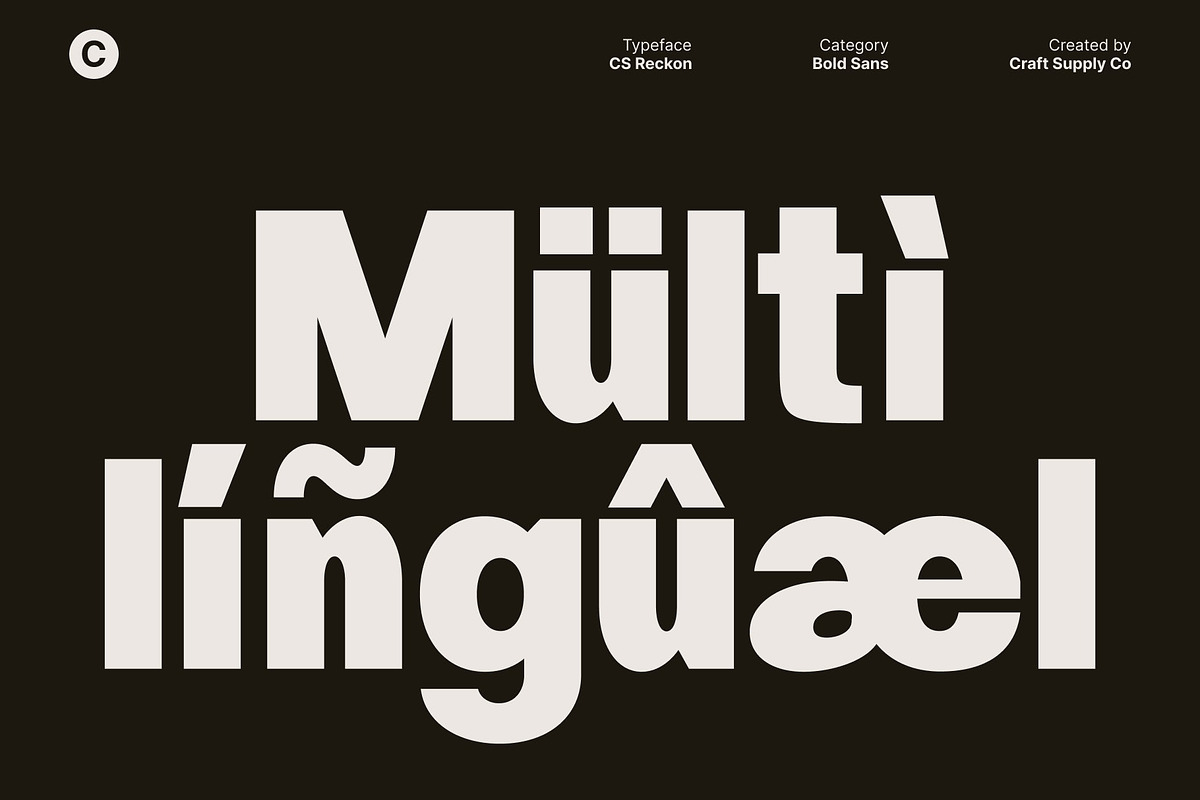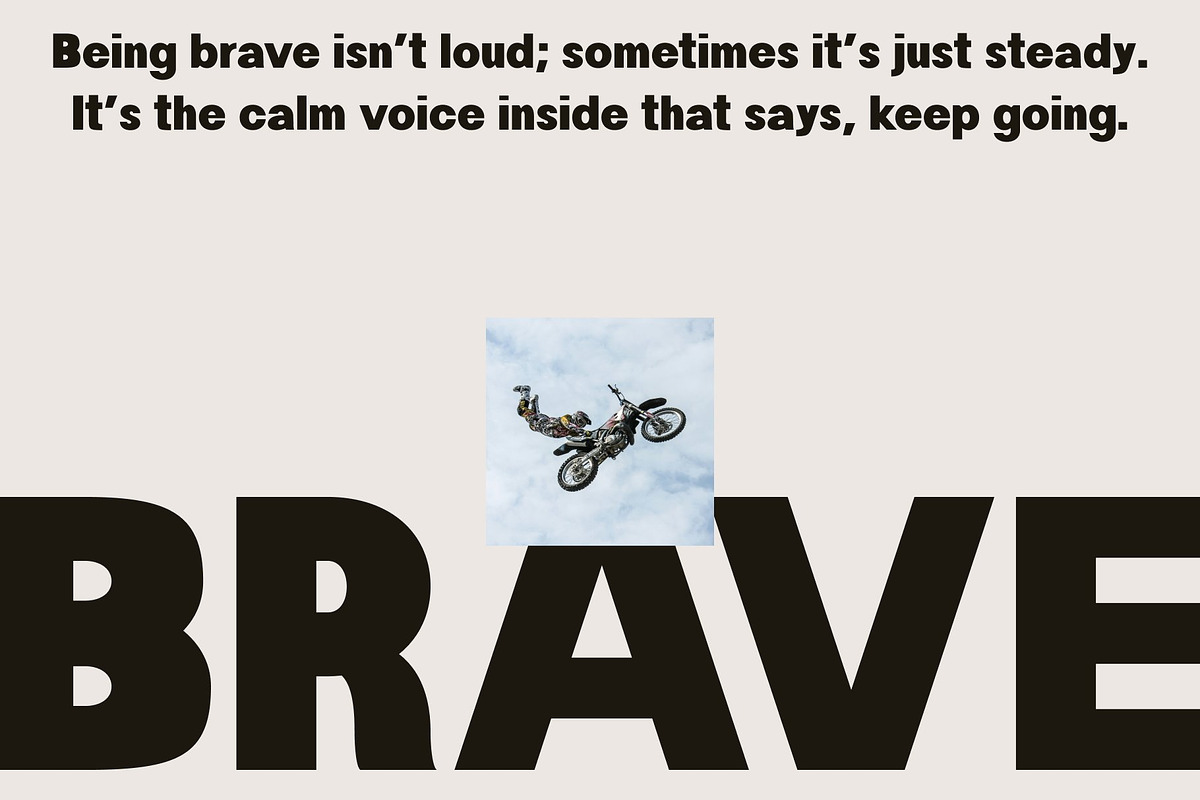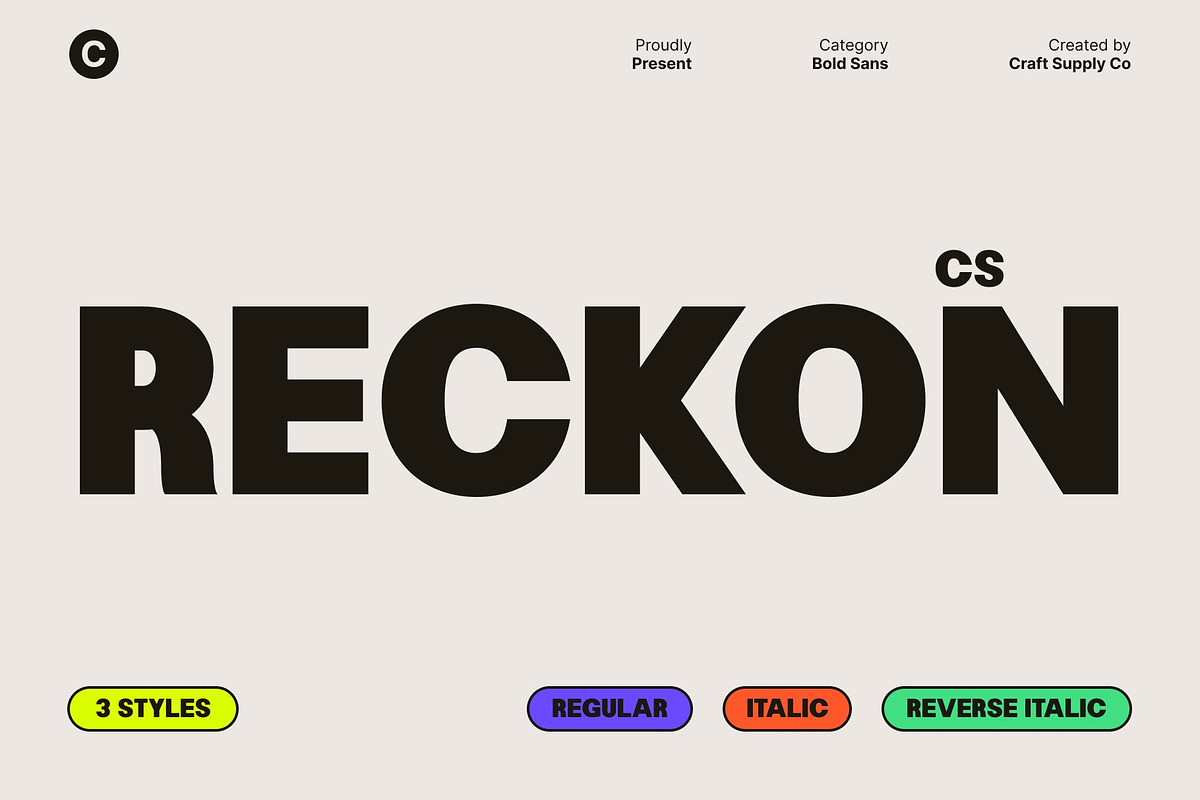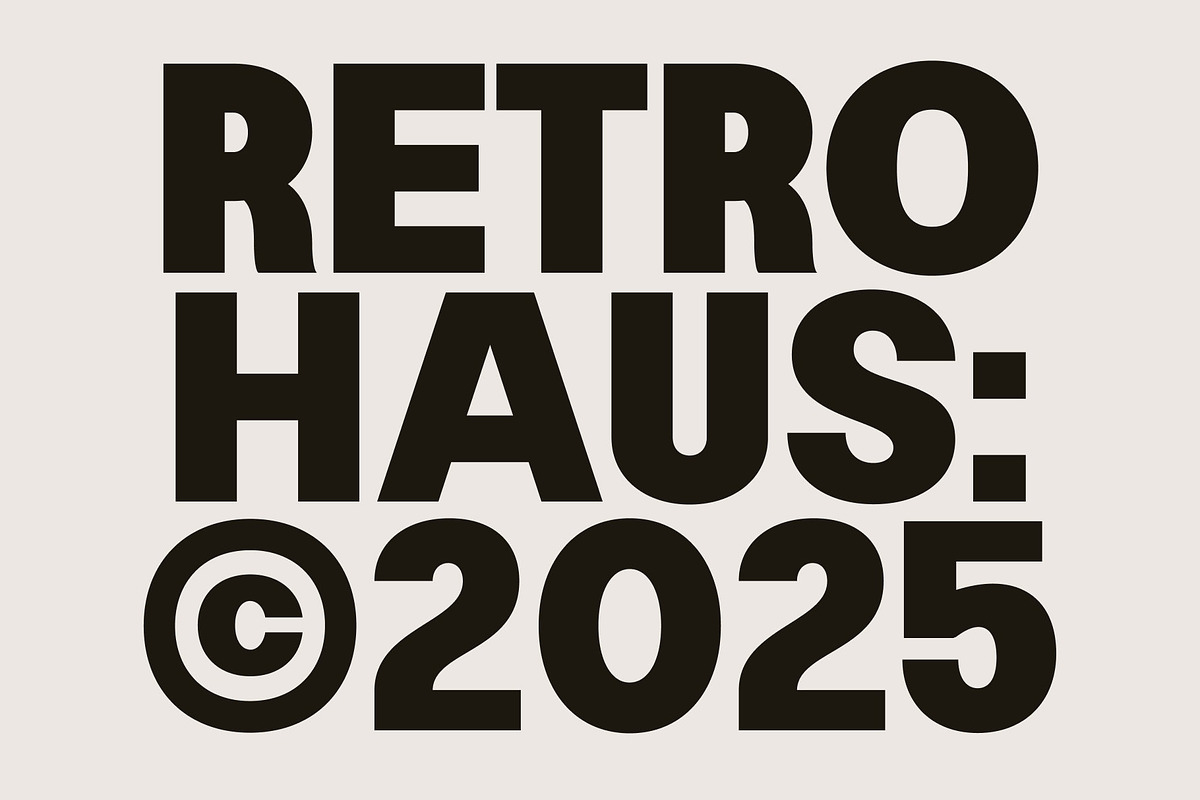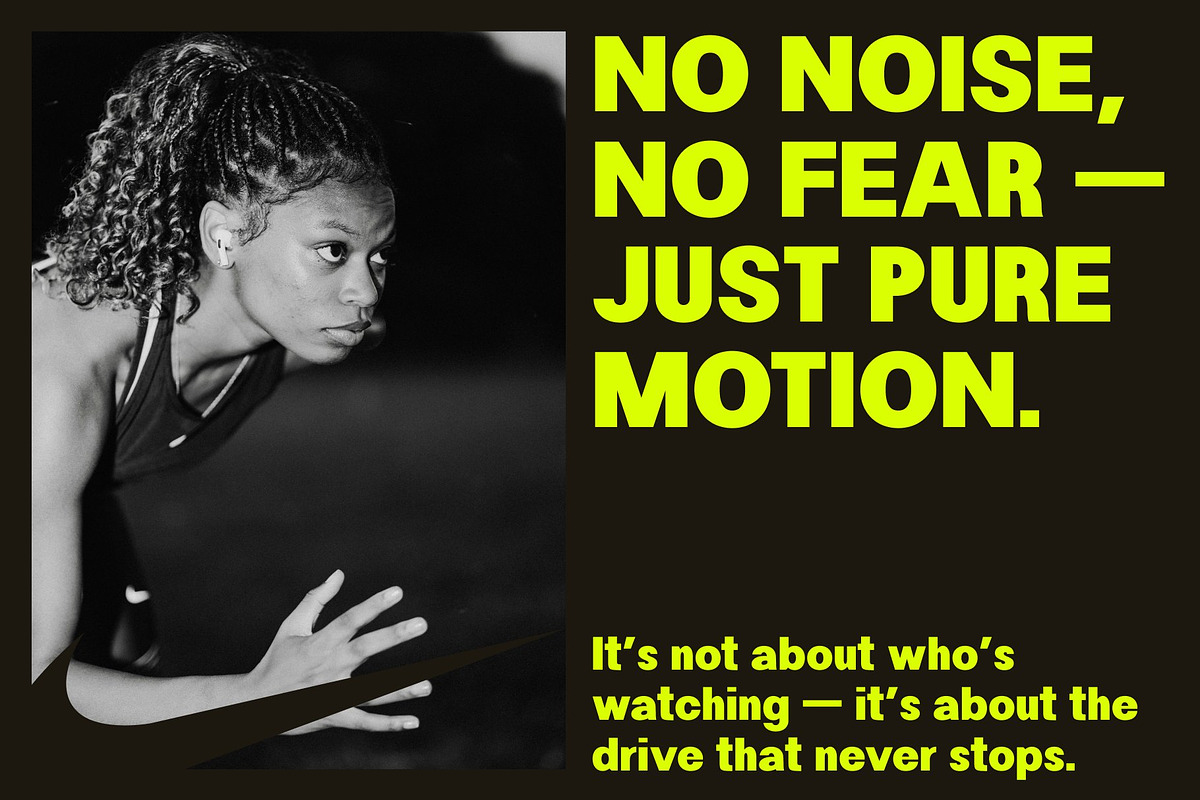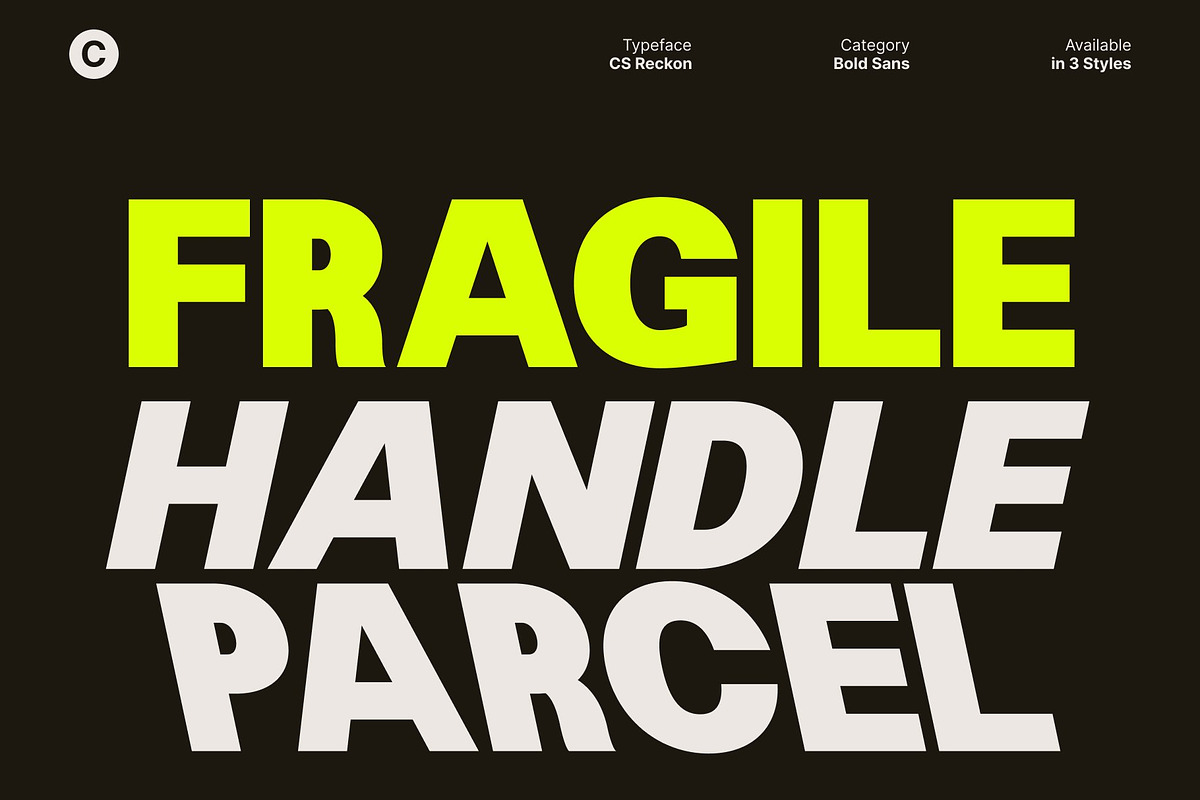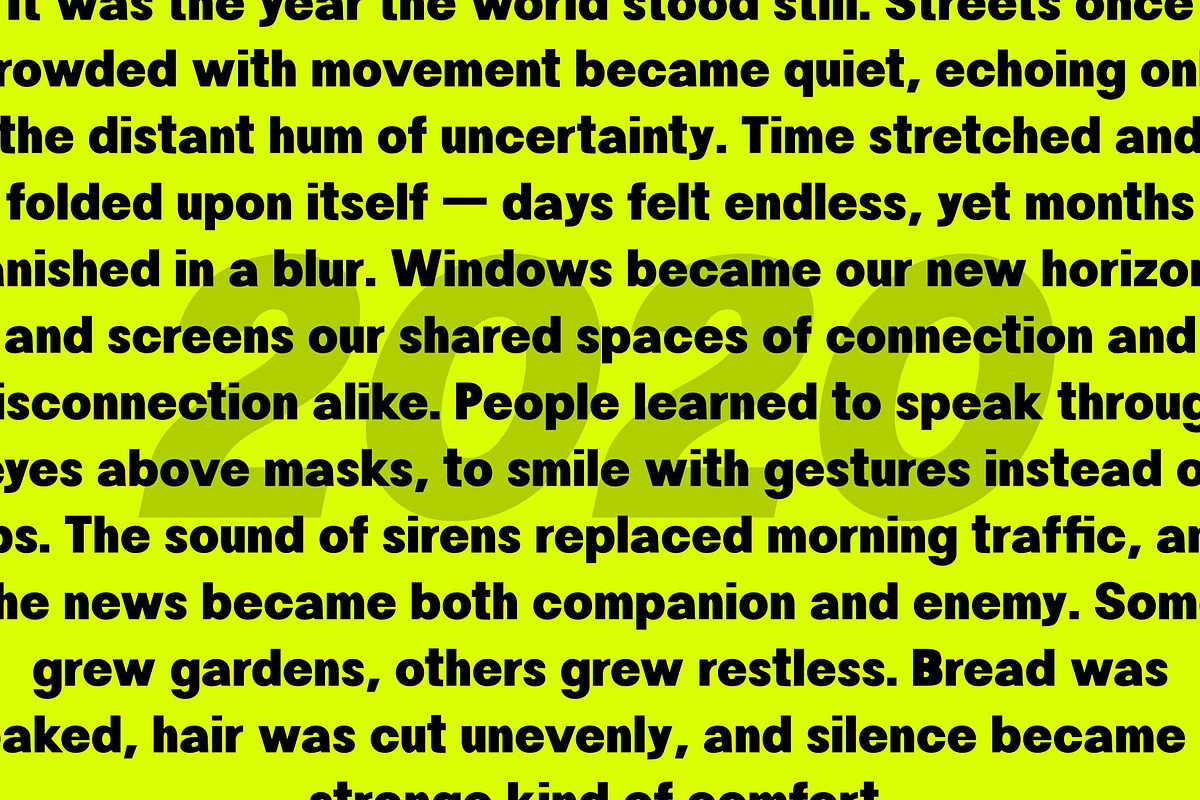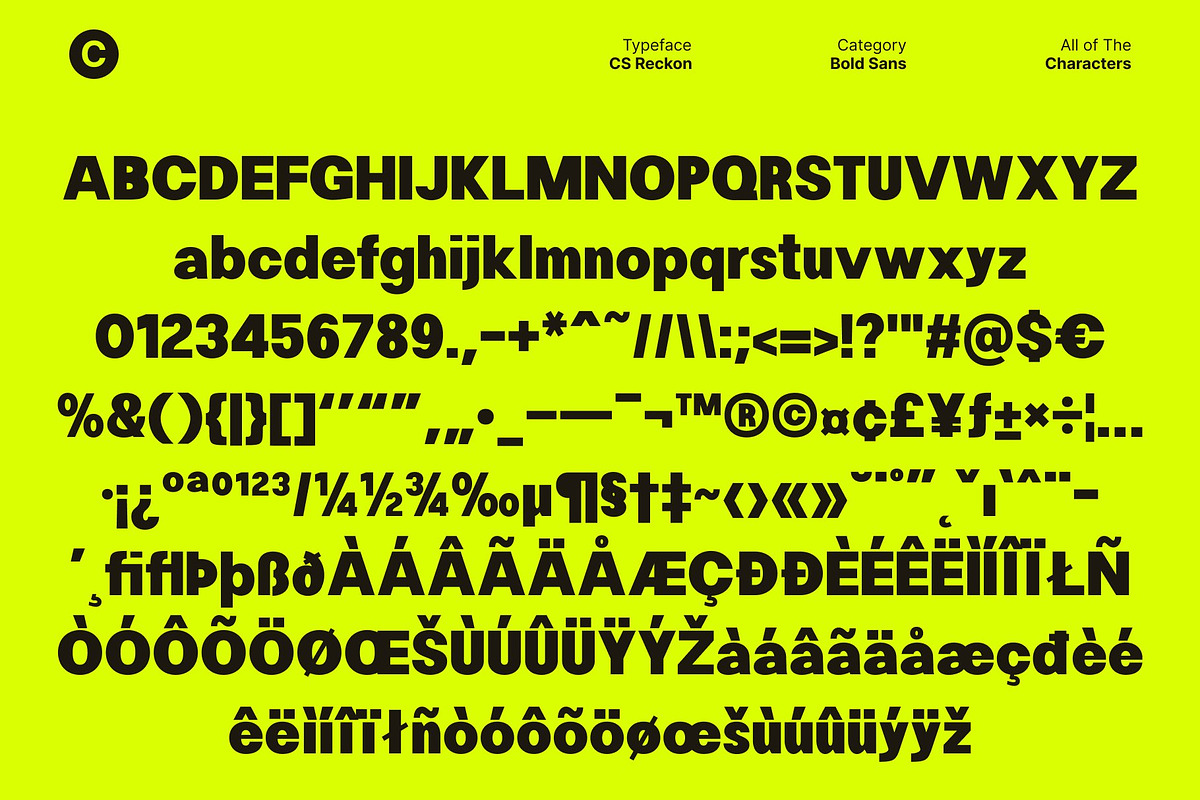
CS Reckon – Bold Sans Serif
CS Reckon – Bold Sans Serif with a Modern, Funky Edge
Strong, Clean Shapes with Unconventional Flair This is a bold sans serif font designed to stand out with confidence. Its strong, clean shapes establish a sense of stability and clarity, while subtle funky detailing adds a refreshing twist. This blend of structure and playfulness gives the font a distinctive voice ideal for designers seeking a modern typeface with expressive personality.
Bold Character for Impactful Headlines Crafted to command attention, this font excels in display use. Its thick strokes and assertive forms bring instant visual impact, making it a top choice for headlines, banners, posters, and editorial graphics. Every letter is built to be noticed, ensuring your message appears powerful, bold, and memorable.
Perfect for Posters, Branding, and Creative Campaigns Whether you’re working on brand identities, promotional posters, product packaging, or digital marketing assets, this font gives your designs a strong visual presence. Its unconventional styling makes it perfect for projects that aim to feel current, expressive, and a bit daring helping brands stand out in competitive spaces.
Modern Style with a Funky, Expressive Twist This font combines modern design principles with a lively, unconventional edge. This fusion allows it to adapt easily to various creative themes while maintaining its unique charm. From youthful branding to contemporary editorial layouts, the font brings energy, personality, and bold modern style to every application.